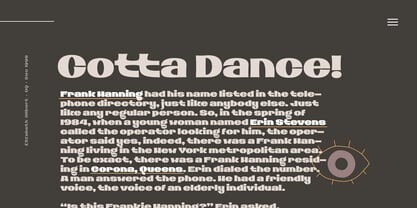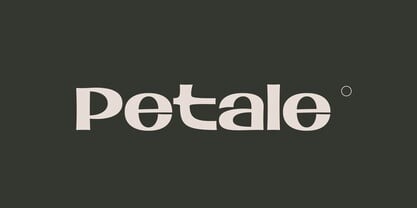
Petale Font Family
Petale Font Family is my new elegant experimental typeface I’d love to present. At the beginning, I was intended to create a bold wide font, I started sketching options and came out with the letter ‘M’ design first. I thought it may be interesting and had continued developing the style with letters N, O, etc., spending hours on some letters to match the design and my vision. I liked how it looked (especially digits) and added different weighs. And it came out pretty stylish.
You may like it to use in magazine designs, posters, websites, packaging, branding, logo, and so on. Petale can grant your work some graceful modern touch with a brutalist-feminine note.